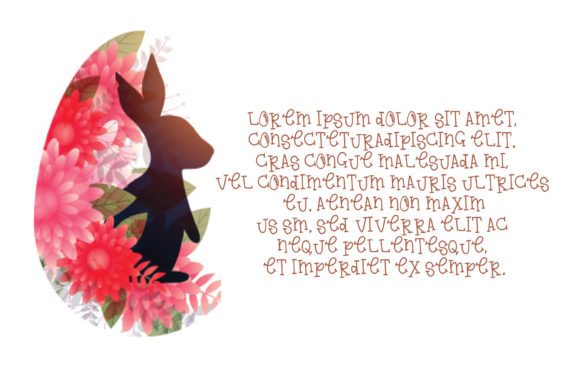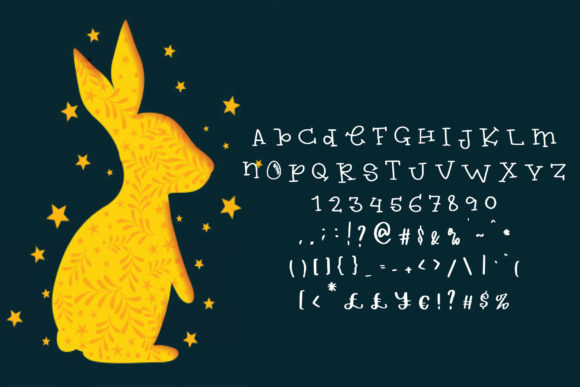
The Easter Egg Font: A Playful Addition to Your Design Arsenal
I’ll never forget the time I was working on a children’s activity book project, and I just couldn’t find the right font to bring the illustrations to life. The client wanted something playful, yet authentic, and I was on a mission to deliver. That’s when I stumbled upon the Easter Egg font, and it was love at first sight! 💕
With its quirky and friendly display style, Easter Egg embodies the perfect blend of playfulness and authenticity. It’s a font that’s sure to make your designs come alive, and I’m excited to share its features and benefits with you.
- ✨ Unique and playful letterforms that add a touch of whimsy to any design
- ✅ Highly legible, even at larger font sizes
- 🎉 Perfect for children’s activities, school projects, and crafty designs
- 👍 Friendly and approachable feel that’s sure to delight your audience
While Easter Egg is an amazing font, there are a few things to keep in mind:
- 🤔 May not be suitable for formal or professional designs, as it’s quite playful
- ⚠️ Limited use of uppercase letters, but that’s part of its charm!
The Story Behind Easter Egg
Easter Egg was designed with one goal in mind: to bring a touch of playfulness and whimsy to children’s designs. The font’s creator was inspired by the joy and wonder of childhood, and wanted to create a font that would capture that magic. With its quirky letterforms and friendly feel, Easter Egg is sure to delight kids and adults alike.
Q: What type of designs is Easter Egg best suited for?
A: Easter Egg is perfect for children’s activities, school projects, crafts, and any design that needs a playful touch.